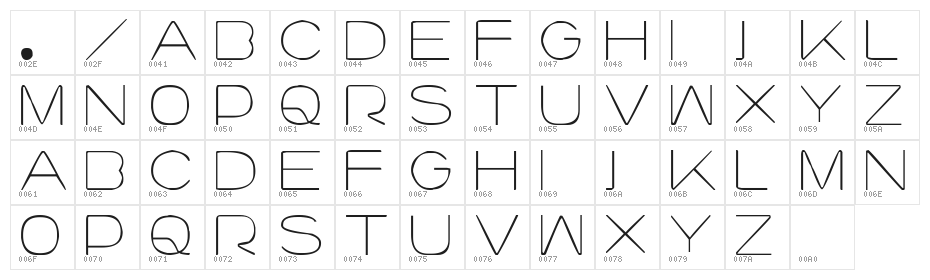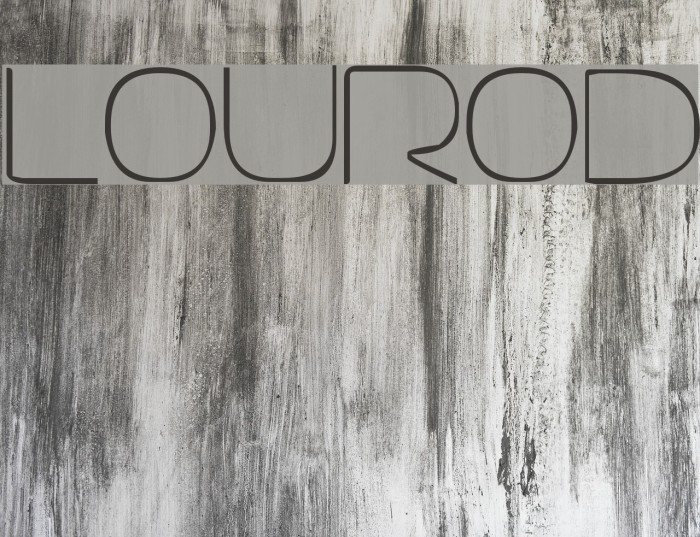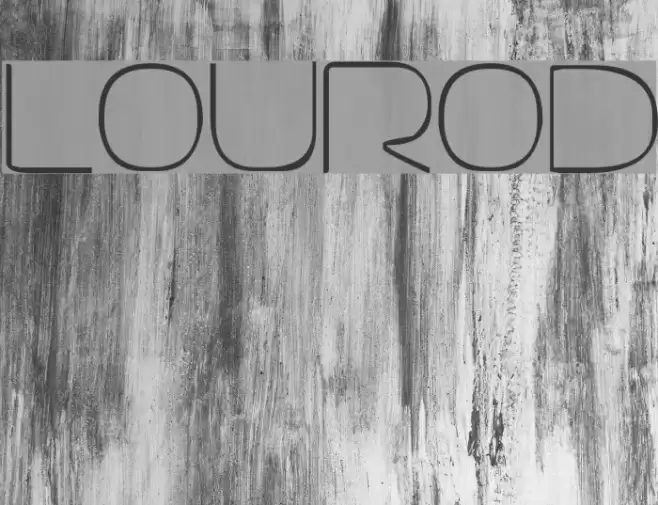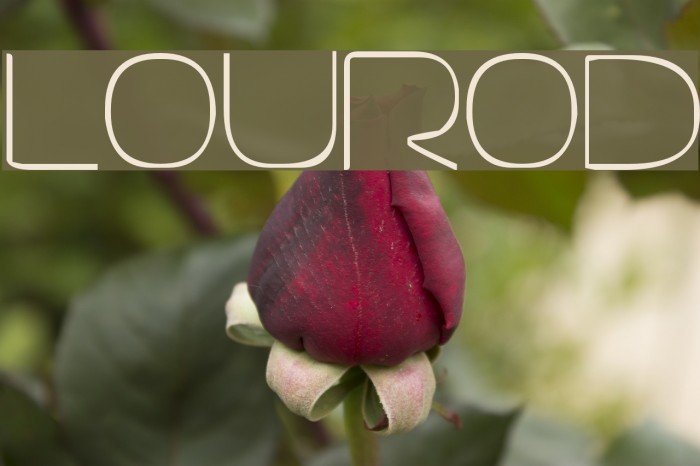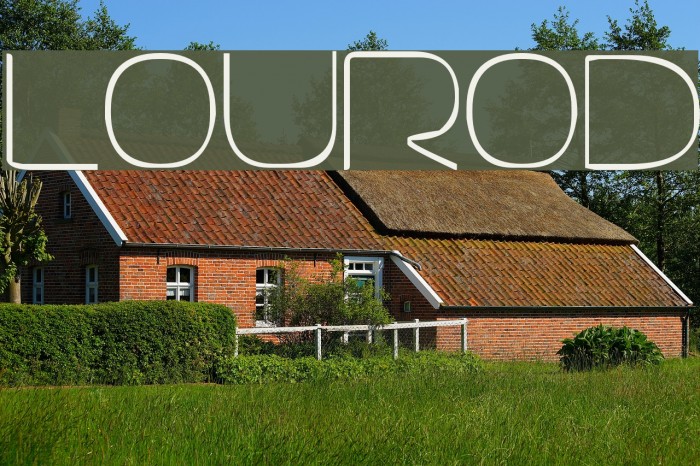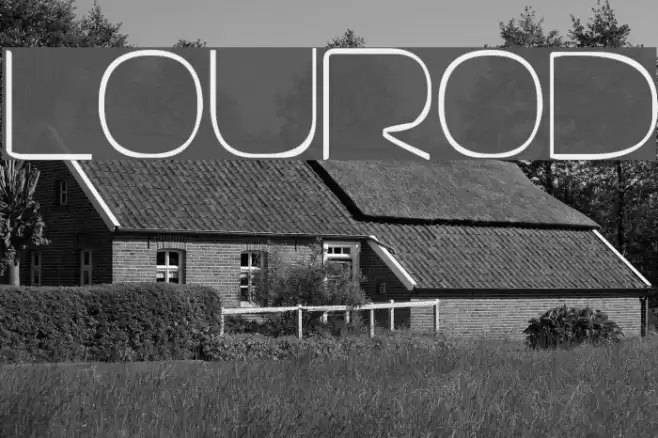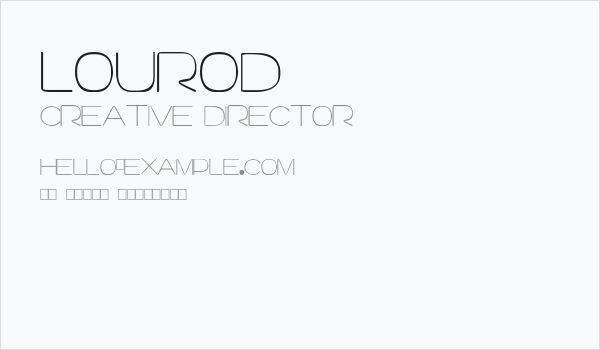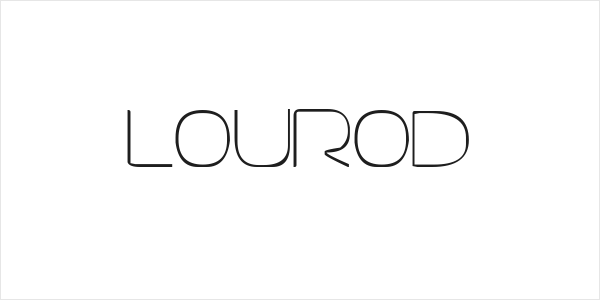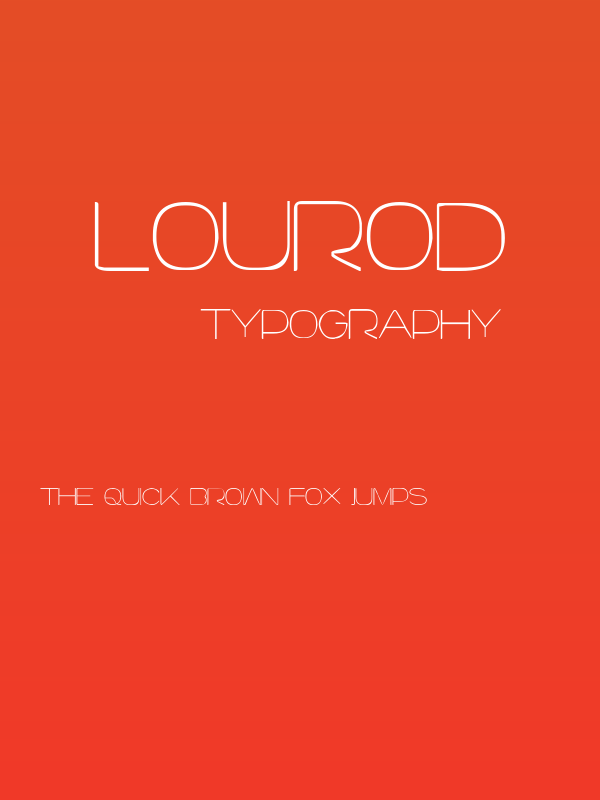
lourod Font
lourod Description
This font features a modern, geometric design with clean lines and a minimalist aesthetic. The uppercase letters are characterized by their uniform stroke width, creating a balanced and harmonious appearance. The absence of serifs enhances its contemporary look, making it suitable for a variety of design applications. The characters are constructed with a focus on simplicity and clarity, ensuring legibility even at smaller sizes. The font's structure is consistent, with each letter maintaining a similar height and width, contributing to its cohesive style. The overall design is sleek and sophisticated, ideal for projects that require a modern and professional touch.